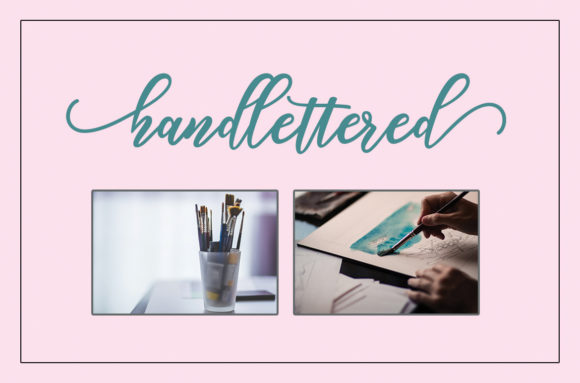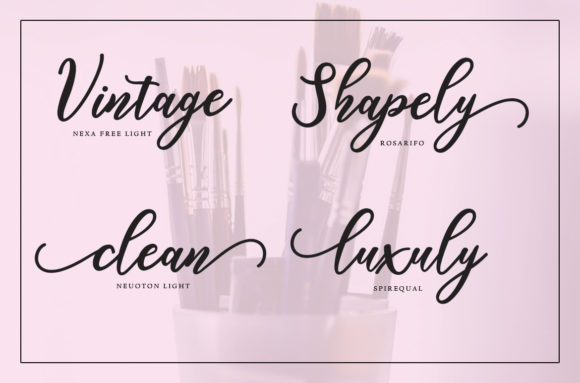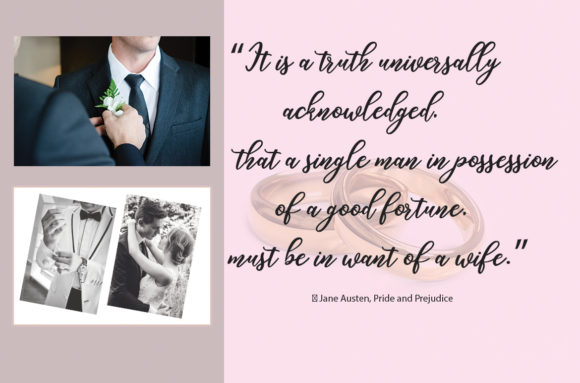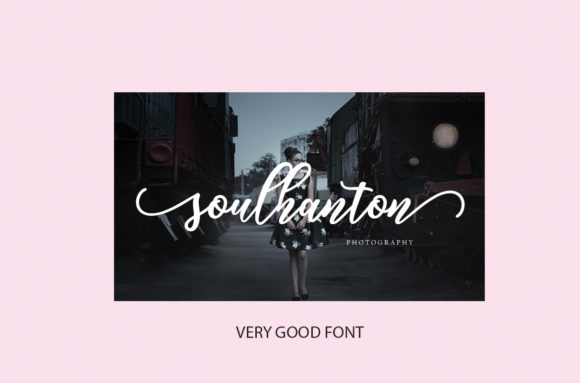
Introducing the Hamster Script Font: Elevate Your Designs with a Personal Touch
Are you tired of using the same old fonts for your designs? Do you want to add a touch of personality and elegance to your creations? Look no further than the Hamster Script Font. This beautiful script font is perfect for designers and crafters who want to add a smooth, personal touch to their work.
What Makes the Hamster Script Font Special?
The Hamster Script Font comes loaded with stunning swashes and alternates, making it a versatile and stylish addition to any design project. With its elegant and flowing script, this font is perfect for creating beautiful headings, titles, and quotes. Whether you’re working on a logo, branding materials, or social media graphics, the Hamster Script Font is sure to impress.
Key Features of the Hamster Script Font
- Stunning Swashes and Alternates: The Hamster Script Font comes with a wide range of swashes and alternates, allowing you to customize your text and add a personal touch to your designs.
- Smooth and Elegant Script: The font features a smooth and elegant script that is perfect for creating beautiful headings and titles.
- Versatile: The Hamster Script Font works great for a large range of designs, from logos and branding materials to social media graphics and more.
Here are a few ideas for using the Hamster Script Font in your designs:
- Logos and Branding Materials: Use the Hamster Script Font to create a beautiful and elegant logo or branding materials for your business.
- Social Media Graphics: Add a personal touch to your social media graphics with the Hamster Script Font.
- Invitations and Stationery: Use the font to create beautiful invitations and stationery for special occasions.
- Packaging and Labels: Add a touch of elegance to your packaging and labels with the Hamster Script Font.
Why Designers and Crafters Love the Hamster Script Font
Designers and crafters love the Hamster Script Font for its versatility, elegance, and ease of use. Here are a few reasons why:
- Unique and Creative: The Hamster Script Font is a unique and creative way to add a personal touch to your designs.
- Elegant and Sophisticated: The font features an elegant and sophisticated script that is perfect for creating beautiful designs.
- Easy to Customize: The font is easy to customize, making it perfect for designers and crafters who want to add their own personal touch to their work.
The Hamster Script Font is a beautiful and versatile font that is perfect for designers and crafters who want to add a smooth, personal touch to their work. With its stunning swashes and alternates, elegant script, and ease of use, this font is sure to become a favorite in your design arsenal. So why wait? Download the Hamster Script Font today and start creating beautiful designs that stand out from the crowd.